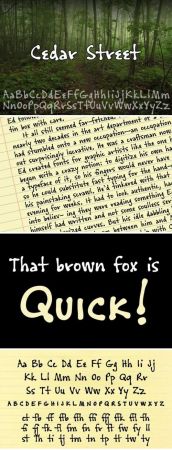
Cedar Street a single medium weight with a thorough character set—more than 650 glyphs in all—including true small caps, numerous ligatures, and full Latin support.